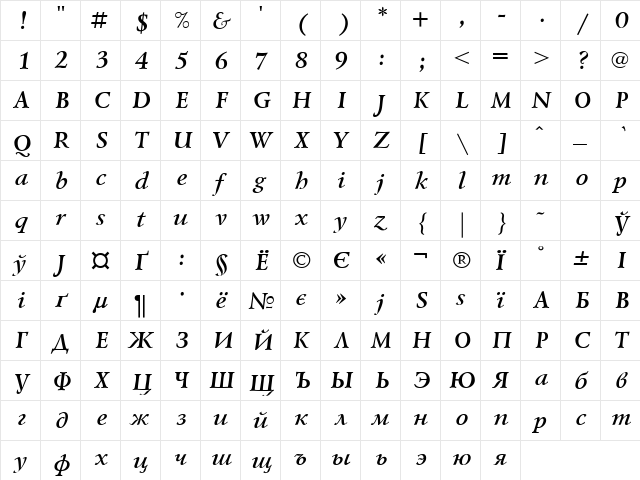
Lazurski BoldItalic
Design Context for Lazurski Typeface
Lazurski offers clean, dependable letterforms without strong stylistic allegiance, making it a practical choice for designers who need flexibility. The dynamic lean of this cut emphasises speed and emphasis in any layout. The heavy weight commands attention and anchors typographic hierarchies.
Pro Tip: Use Lazurski for emphasis, pull quotes, and subheadings where its slanted energy can add rhythm to the layout.